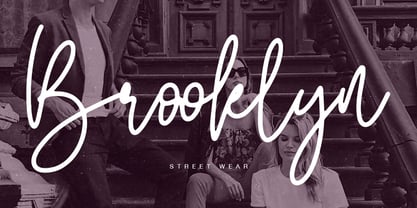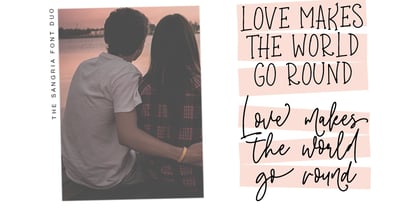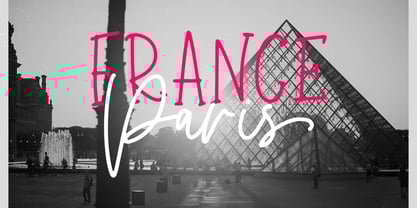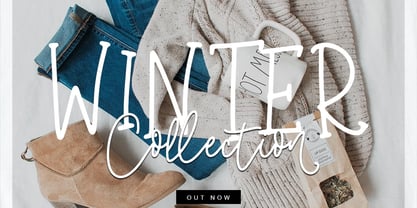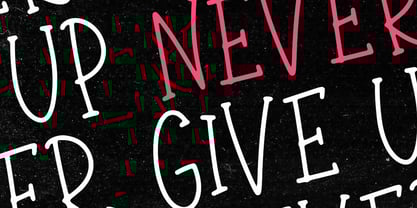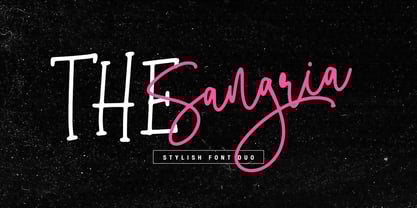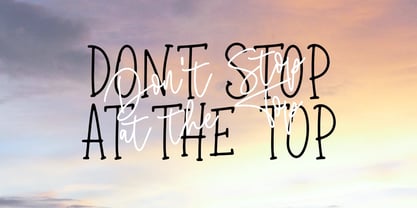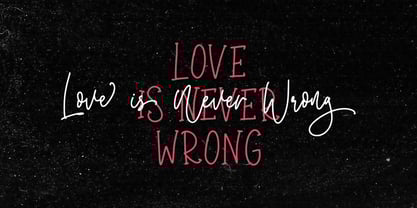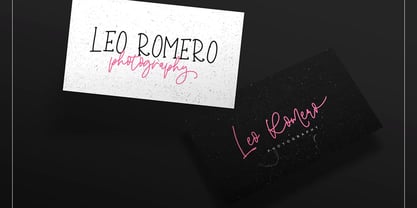
THE Sangria Duo
The THE Sangria Duo Font Family was designed by Alexander Tiunov and published by BestTypeCo. THE Sangria Duo contains 2 styles and family package options. More about this family
The Sangria Font Duo - a new fresh handmade calligraphy font.
Very suitable for greeting cards, branding materials, business cards, quotes, posters, and more!This font are perfect for wedding postcard. Or you can create perfect and unique design of your logo, blog, stationery, marketing, magazines and more :)
Features :
• UpperCase & Lowercase
• Multilingualcharacters(AÀÁÂÃÄÅCÇDÐEÈÉÊËIÌÍÎÏNÑOØÒÓÔÕÖUÙÜÚÛWYÝŸŸ - ÆŒßÞàáâãäåæçèéêëìíîïðñòóôõöøùúûüýÿ)
• LIGATURES
• ALTERNATES !!!